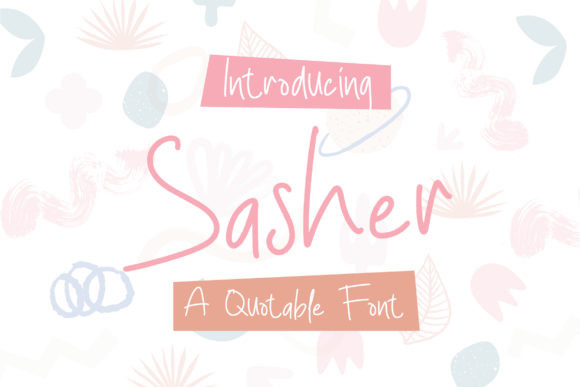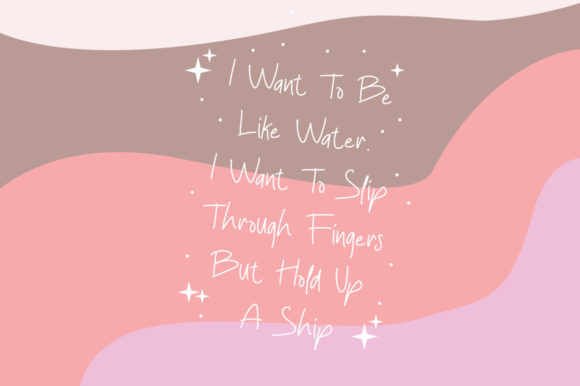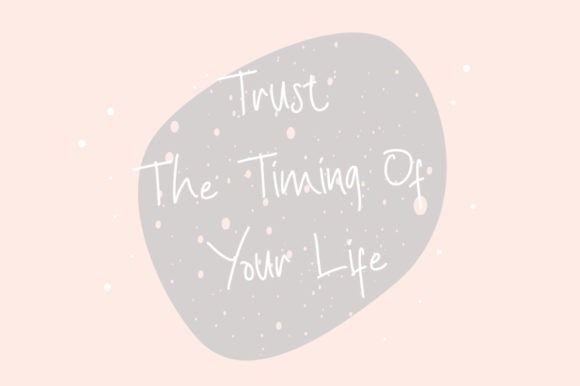
Sasher Font
Sasher is a cute and dainty handwritten font. Whether you’re looking for fonts for Instagram or calligraphy scripts for DIY projects, this font will turn any creative idea into a true piece of art!